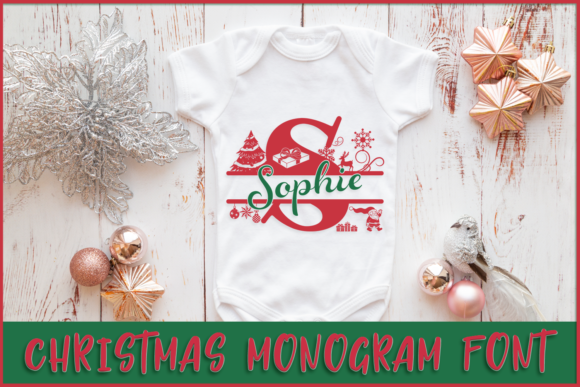
Introducing Christmas Monogram Font, the perfect addition to your collection of fonts for Christmas stockings. Designed by the talented Anastasia Feya, this display font is sure to captivate and inspire. With its sweet holiday-inspired design and unique style, it will add a touch of romance to your festive creations.
Imagine the joy and excitement of opening your Christmas stockings, each one personalized with beautifully crafted monograms. With Christmas Monogram Font, you can easily create stunning designs that will make your loved ones feel truly special. Whether it's for your family, friends, or even clients, this font will elevate your holiday gifting to a whole new level.
The beauty of Christmas Monogram Font lies in its intricate details and charming aesthetics. Each letter is carefully crafted to evoke warmth and nostalgia, reminding us of the magical moments shared during this enchanting season. Its elegant curves and graceful flourishes will bring a touch of elegance to any project.
Not only does Christmas Monogram Font possess an irresistible charm, but it also offers endless creative possibilities. Its versatility allows you to use it for a variety of purposes, from personalized stockings to holiday cards, gift tags, and more. Let your imagination run wild as you create unique and memorable designs that will leave a lasting impression.
With Christmas Monogram Font, your holiday designs will stand out from the crowd. Its eye-catching appeal will instantly grab the attention of your audience, making your creations impossible to ignore. Whether you're a professional designer or someone who simply loves to spread holiday cheer, this font is a must-have in your toolkit.
Embrace the spirit of Christmas with Christmas Monogram Font. Let its unique style and captivating beauty transform your creations into works of art. Get ready to immerse yourself in the holiday magic and create memories that will be cherished for years to come.